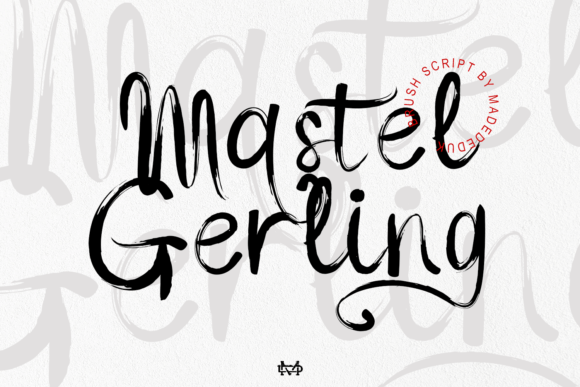
Introducing Mastel Gerling Font - The Ultimate Handcrafted Script Font for Flawless Visual Communication
In the captivating world of typography, Mastel Gerling Font emerges as a masterpiece - an artistic expression crafted with meticulous attention to detail. This modern handwritten brush font is not just a collection of letters, but a work of art that breathes life into your creations.
With its stunning strokes and elegant curves, Mastel Gerling Font is the epitome of creativity and sophistication. Designed by the talented madeDeduk, this font family encapsulates the essence of style and innovation. Discover the boundless possibilities of Mastel Gerling Font and unlock the true potential of your creative projects.
From captivating poster designs to stylish book covers, Mastel Gerling Font adds a touch of artistry to every visual creation. Unleash your imagination and watch your designs come to life with the effortless grace of this modern masterpiece.
But Mastel Gerling Font isn't just aesthetically pleasing - it's also incredibly versatile. Whether you're creating merchandise, fashion campaigns, or newsletters, this font family seamlessly integrates into any design concept. Its unique character adds depth and dimension to your branding, leaving a lasting impression on your audience.
In the realm of magazines and greeting cards, Mastel Gerling Font shines brightly. Its elegant strokes enhance the impact of your messages, making every word a statement of artistry. From captivating album covers to inspiring quote designs, this font family captures the essence of your creativity and leaves readers spellbound.
Experience the limitless possibilities of Mastel Gerling Font in the world of advertising. Its bold and captivating presence commands attention, ensuring your messages stand out from the crowd. Elevate your campaigns with the timeless beauty of this modern handwritten font and create visuals that resonate with your audience.
So, why choose Mastel Gerling Font? Because it's more than just a font - it's a creative companion that amplifies your vision and elevates your designs. With its unparalleled elegance and versatility, Mastel Gerling Font transforms ordinary words into extraordinary art.